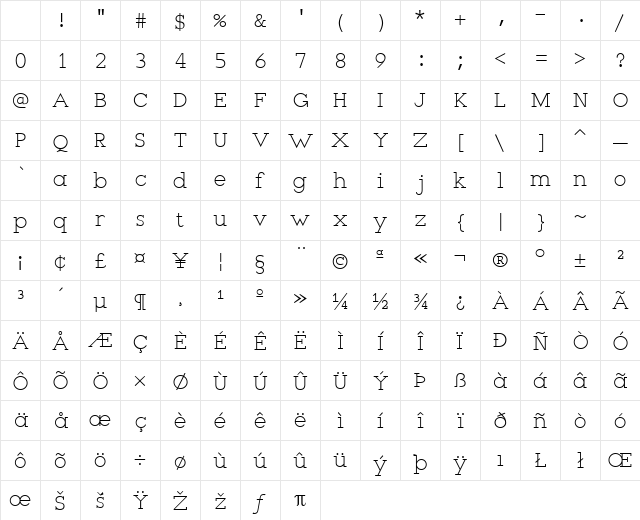
Bennington Regular
Bennington Family
Complete Bennington Regular glyph index. Displaying only characters natively supported by Bennington Regular font.
Design Context for Bennington
Bennington is a composed and adaptable typeface that performs quietly and consistently across a wide range of design contexts.